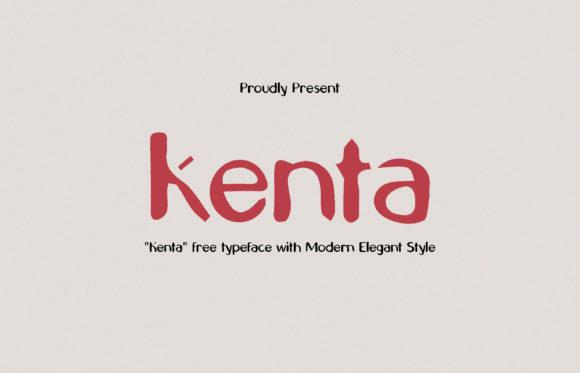
Introducing the Kenta Font: Your Secret Weapon for Unforgettable Logos and Branding
Prepare to be mesmerized by Kenta, an enchanting display font meticulously crafted to elevate your creative vision. With its captivating blend of clean lines and a touch of whimsy, Kenta effortlessly transforms ordinary designs into extraordinary masterpieces.
Unleash your imagination and adorn your logos, branding, and social media presence with the charm of Kenta. Its versatility knows no bounds, making it the perfect companion for any project that demands a captivating first impression.
Step into the realm of limitless possibilities with Kenta. Its unique character adds a dash of intrigue to your designs, captivating audiences and leaving an indelible mark on their minds.
Don't settle for ordinary fonts that blend into the background. Embrace the power of Kenta and let your designs soar to new heights. Its meticulously crafted glyphs dance across the page, creating a visual symphony that commands attention.
Whether you're a seasoned designer or a creative enthusiast, Kenta is your key to unlocking a world of unforgettable designs. Its effortless elegance empowers you to express your vision with confidence and style.